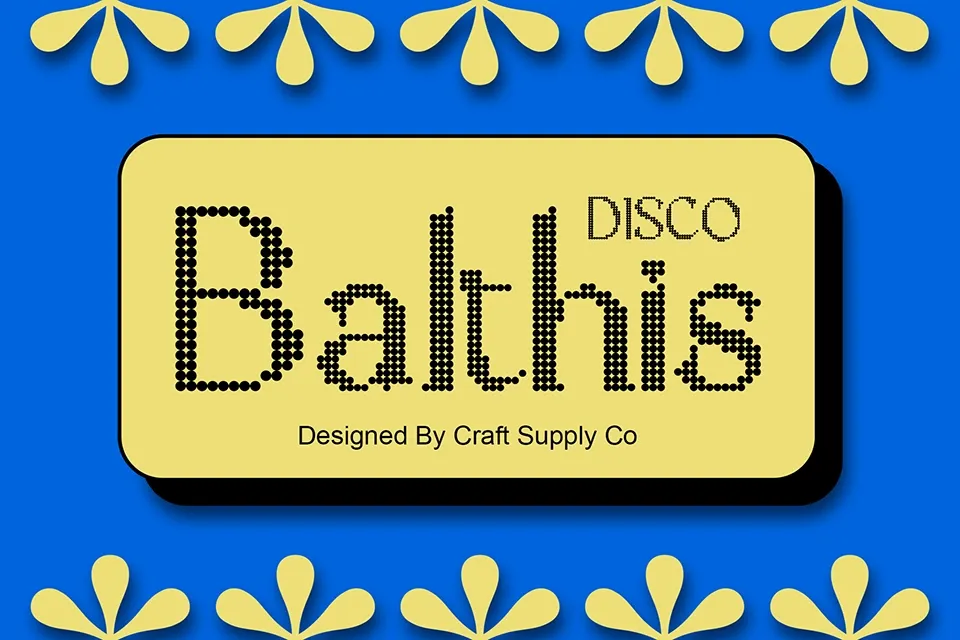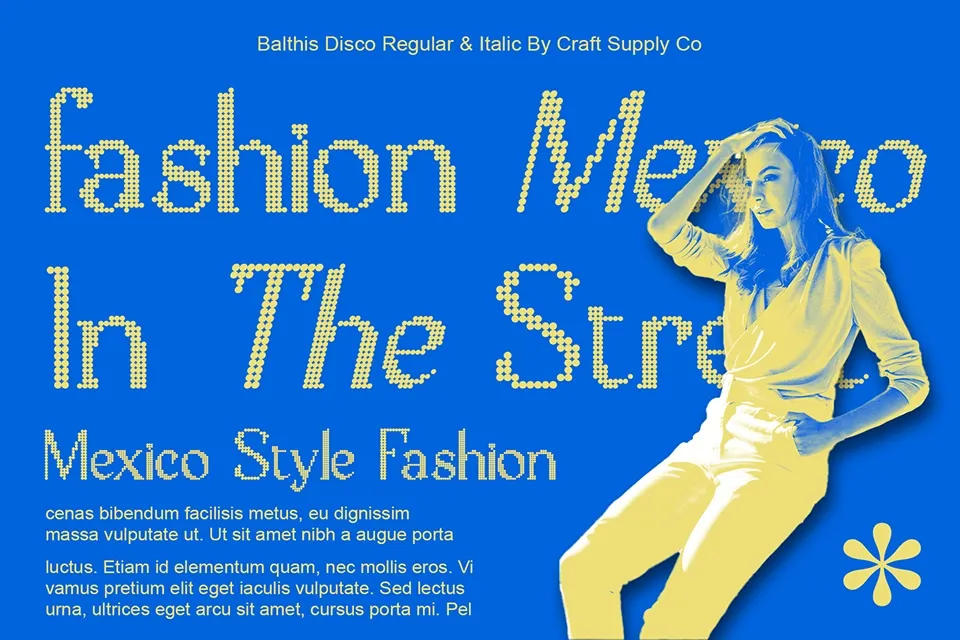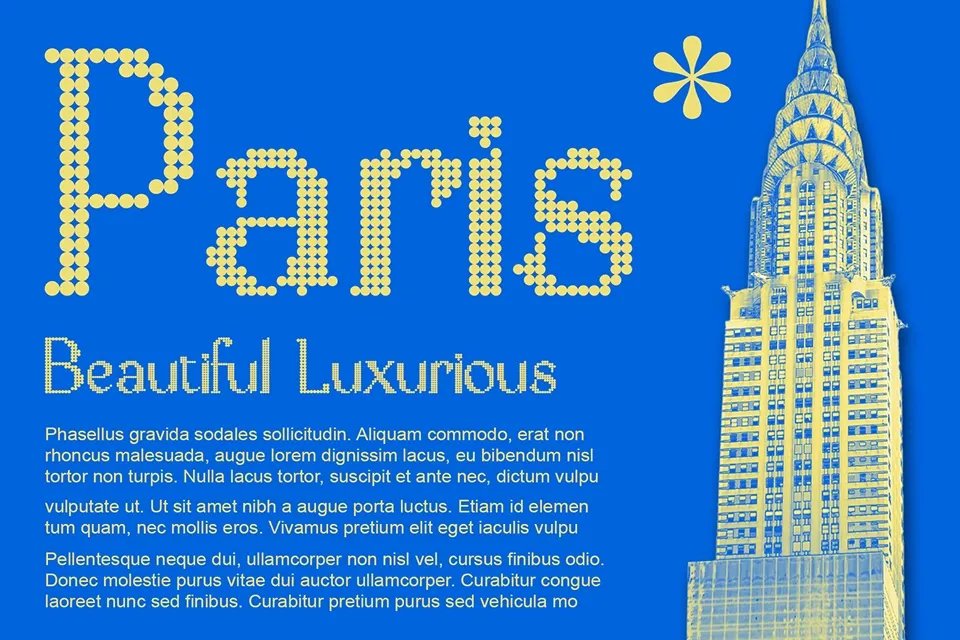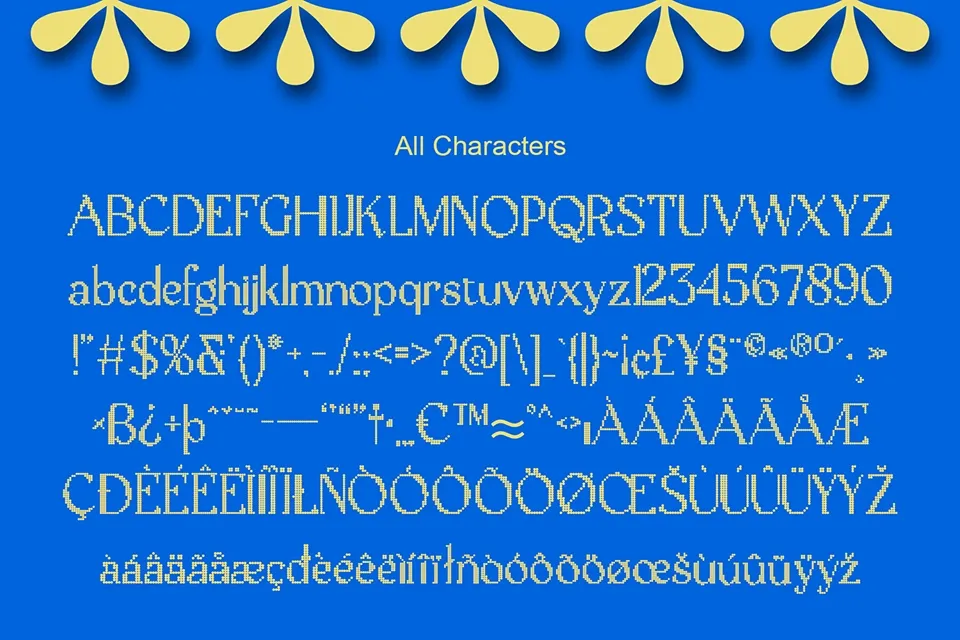
Balthis Disco Font
Balthis Disco Font is a vibrant and playful typeface designed by Craft Supply Co, inspired by the dazzling aesthetics of disco culture. Its unique dotted style creates a bold, retro look, perfect for projects that demand attention and energy. Balthis Disco combines creativity with functionality, making it ideal for posters, event invitations, branding, or any design that seeks to evoke the lively spirit of the dance floor. The font’s geometric precision and artistic flair ensure it stands out while maintaining readability. With Balthis Disco, you can add a touch of nostalgia and excitement to your creative endeavors!